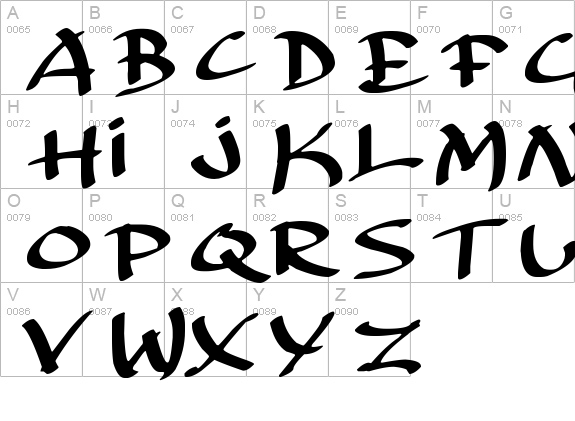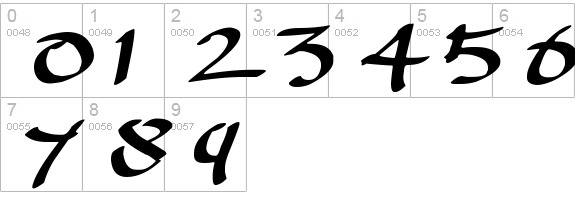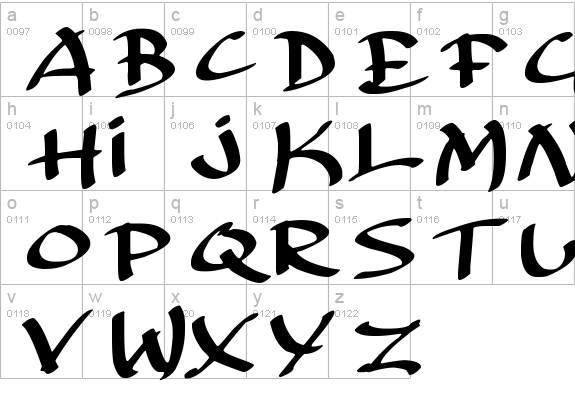
Archaic Asian Inks Font Details
Archaic Asian Inks is a free for personal use font in the Script > Handwritten category, designed by Darrell Flood. It has been downloaded 141 times and is available for Windows, Mac and Linux.
Archaic Asian Inks font brings a touch of ancient elegance and traditional charm to your designs. Inspired by traditional Asian calligraphy, this unique typeface exudes a sense of history and cultural richness. The intricate brush strokes and delicate curves of each character give a timeless quality to any project, whether it's a logo, poster, or branding material.